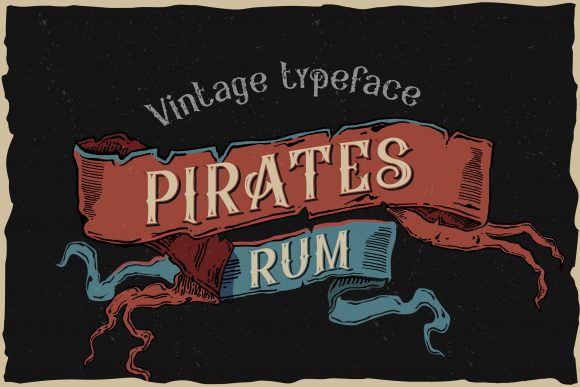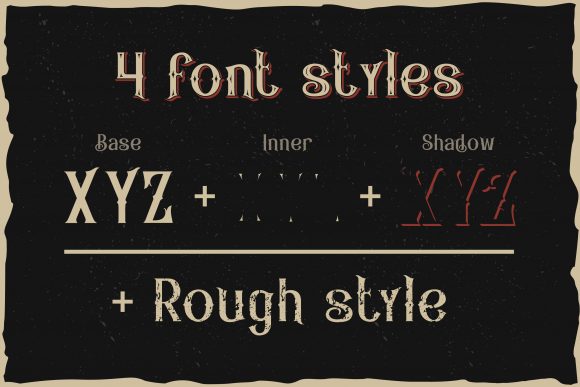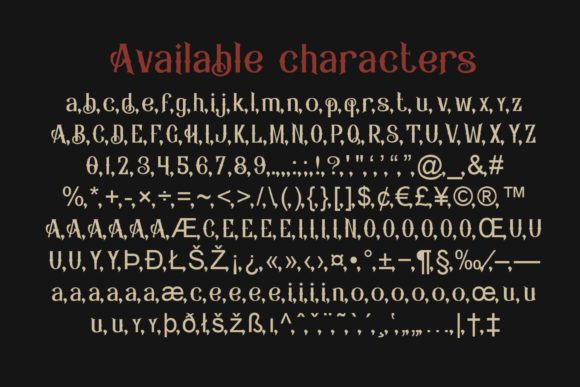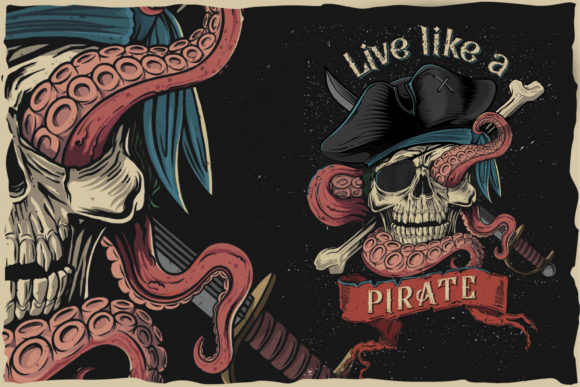
Pirates Rum Font: A Bold Vintage Display Font for Unique Logo Design
About the Pirates Rum Font
Step up your design game with Pirates Rum Font, a font that exudes confidence and style. Pirates Rum is a bold, vintage styled display font. This font reads as strong, confident, and dynamic and can add tons of nostalgic character to your designs.
Pirates Rum excels in headline applications, logos, and short, impactful text within posters or packaging designs. Its vintage styling lends itself well to projects evoking a sense of adventure, history, or a rebellious spirit. Avoid using it for body copy or UI elements; its strong character and large x-height are not suitable for extended reading.
The font’s inherent boldness pairs well with clean sans-serif fonts like Futura or Gill Sans for a balanced contrast. For a more whimsical feel, consider pairing it with a playful script font, but ensure legibility by using the script sparingly. A geometric sans-serif like Bebas Neue could also create a striking juxtaposition, depending on the desired aesthetic.
Pirates Rum projects a bold, adventurous, and slightly rebellious personality. It’s ideal for brands associated with rum, spirits, travel, or anything that needs a strong vintage appeal with a touch of grit.